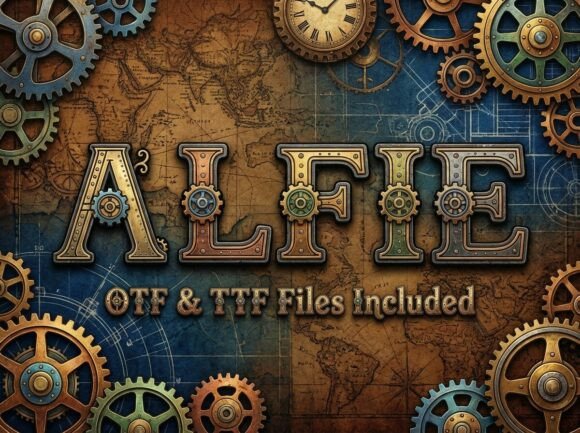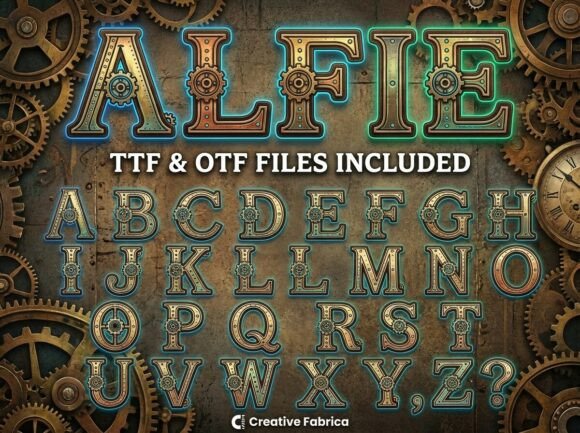
Unleash Your Creativity with Alfie Font: A Decorative Display Masterpiece
I’ll never forget the design project that led me to discover Alfie Font. I was working on a poster for a local art festival, and I wanted to create a headline that would grab attention. I scoured font libraries, but nothing seemed quite right – until I stumbled upon Alfie Font. Its unique artistic elements and strong visual personality instantly elevated my design, and I knew I had found the perfect fit.
First Impressions: A Font that Demands Attention
Alfie Font is a stunning decorative display font designed to be the center of attention. With its intricate details and creative letterforms, it’s perfect for creators who want to break away from the ordinary. This font adds an instant “wow” factor to any project, making it ideal for high-impact designs where the typography needs to do the talking.
Here’s what I love about Alfie Font:
- ✨ Unique artistic elements that add a touch of sophistication
- ✅ Strong visual personality that grabs attention
- 💥 Versatile enough for bold headlines, artistic logos, and creative packaging
- 👍 Maintains a professional and polished finish
And here are some minor quirks to consider:
- 🤔 May require some experimentation to get the hang of using OpenType features and glyphs
- ⚠️ Not suitable for body text or long-form content due to its decorative nature
The Story Behind Alfie Font
Alfie Font was designed by a team of creatives who wanted to push the boundaries of traditional typography. Inspired by art, architecture, and nature, they crafted a font that would add a touch of sophistication and elegance to any design. With its intricate details and creative letterforms, Alfie Font is a true masterpiece.
| Font Name | Alfie Font |
| Author | kulturrno |
| What is Alfie Font best used for? | Alfie Font is perfect for high-impact designs where the typography needs to do the talking, such as poster design, branding and logos, apparel and merch, social media, and packaging. |
| Is Alfie Font suitable for body text? | No, Alfie Font is a decorative display font and not suitable for body text or long-form content. |
| Is Alfie Font easy to read? | Alfie Font is designed to be attention-grabbing, but may not be the most readable font for long-form content. Use it for headlines and titles where visual impact is key. |